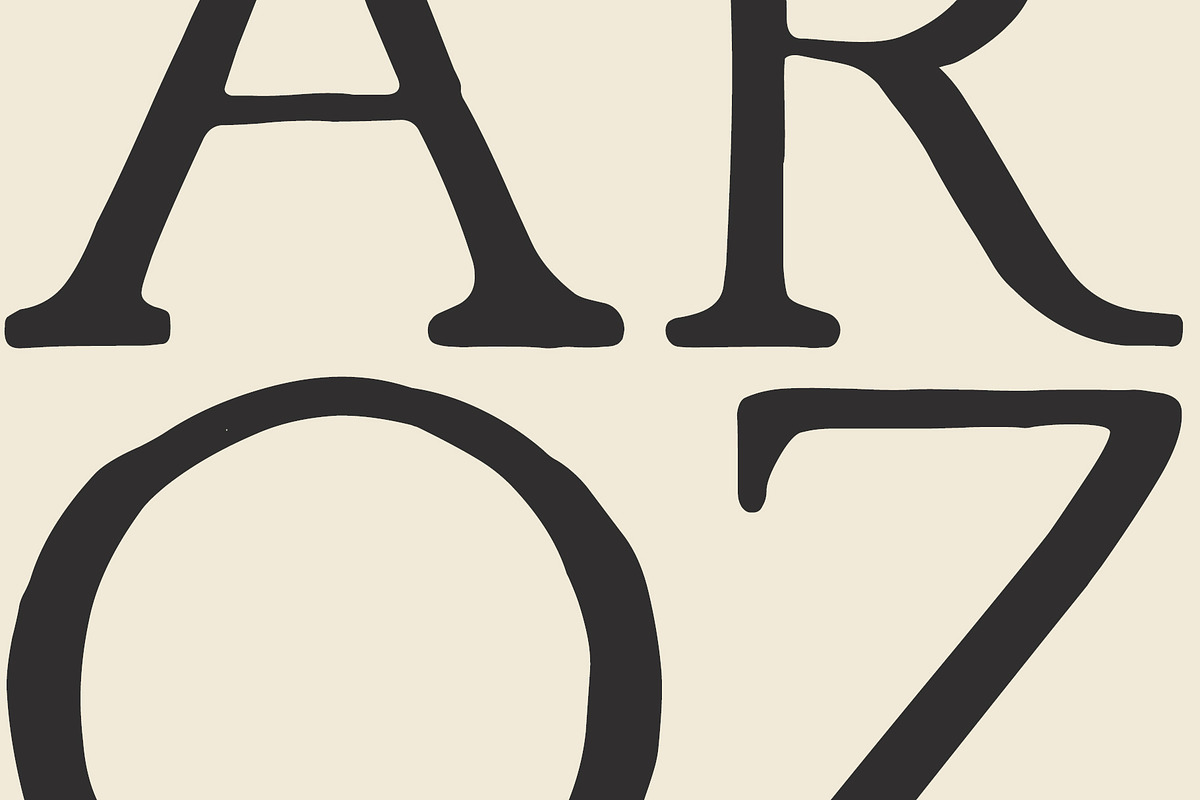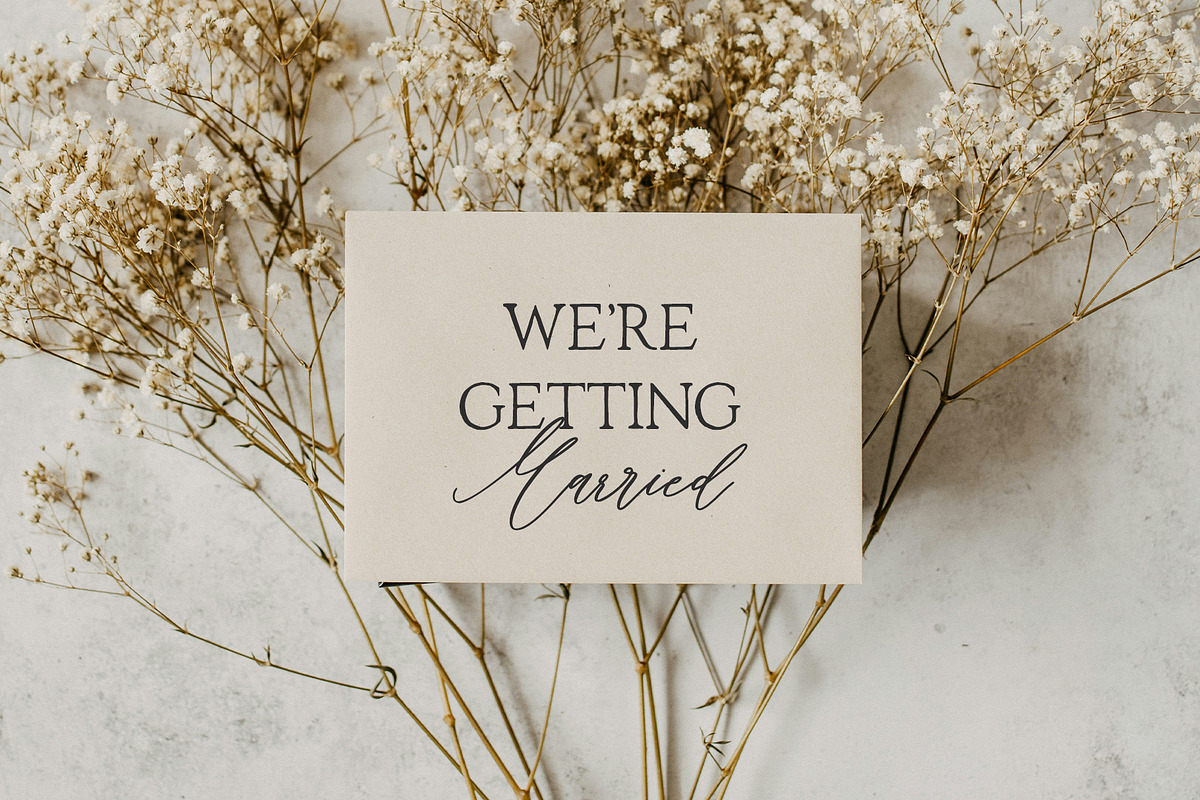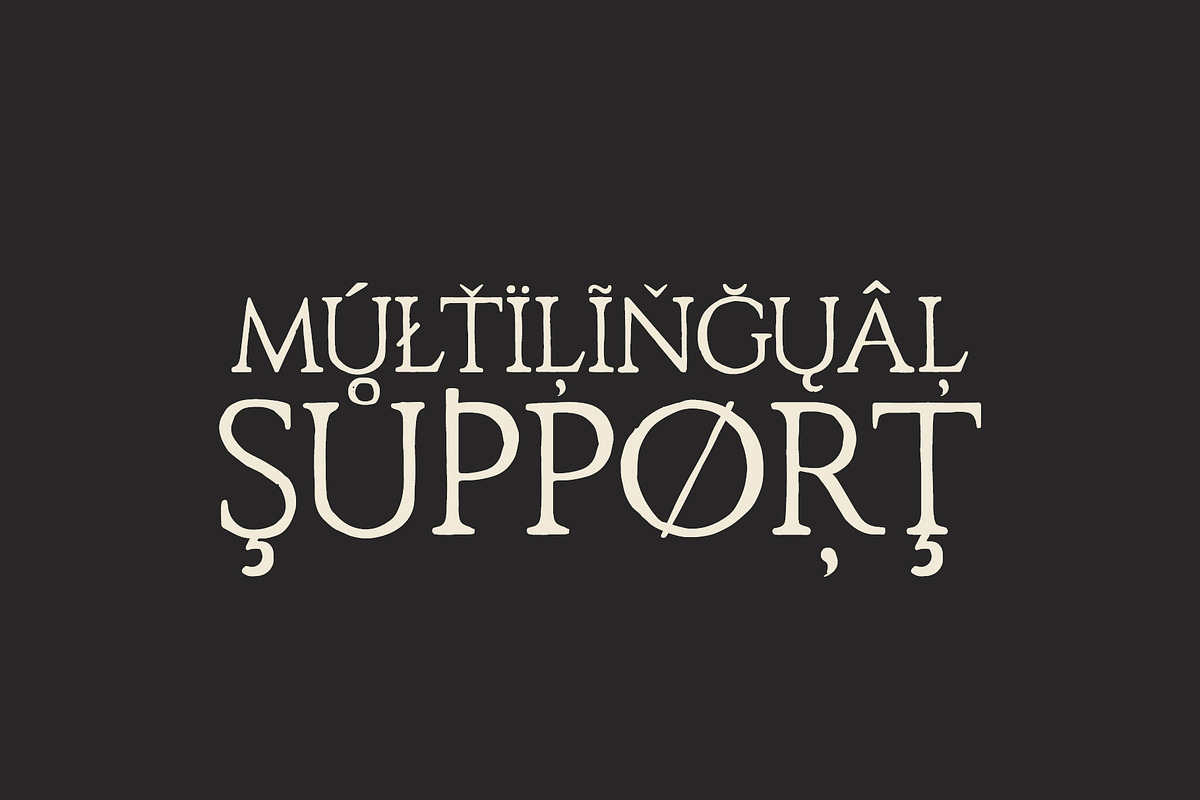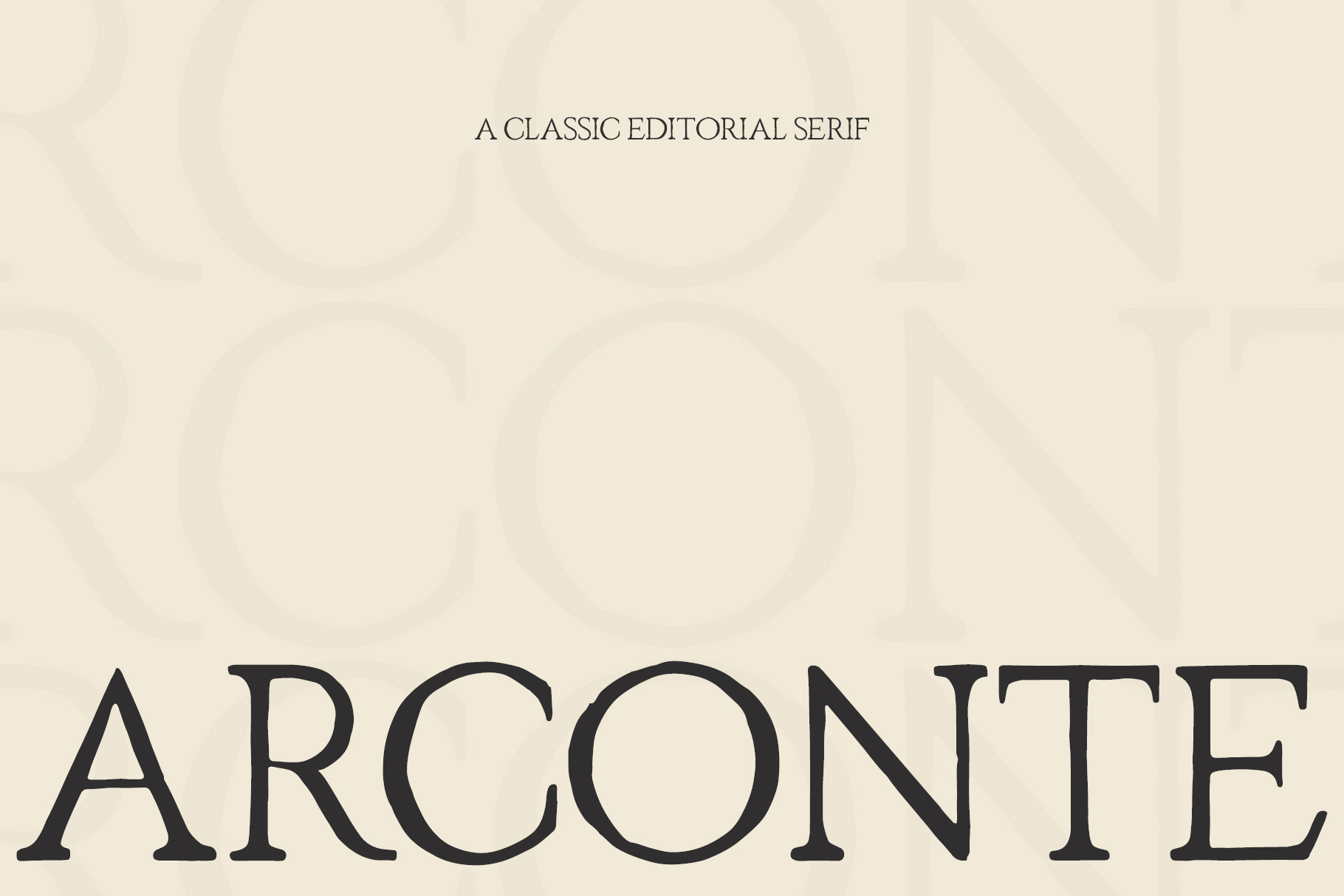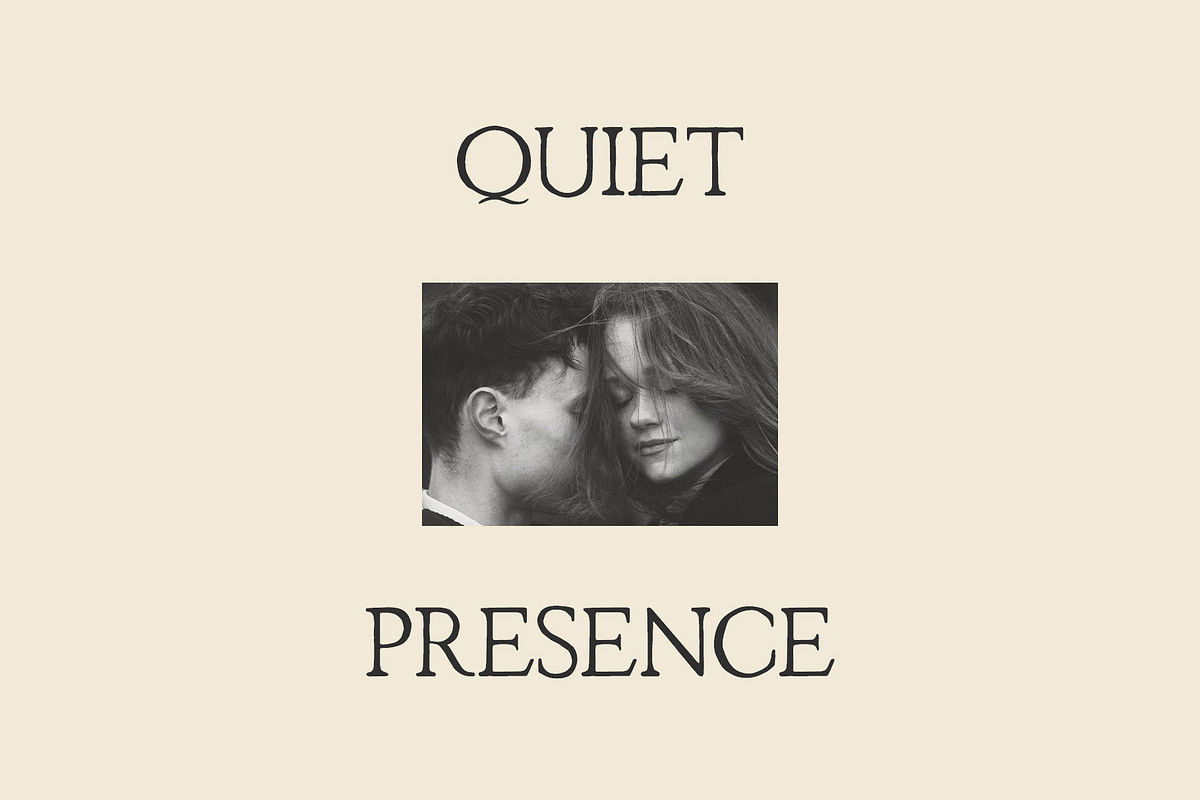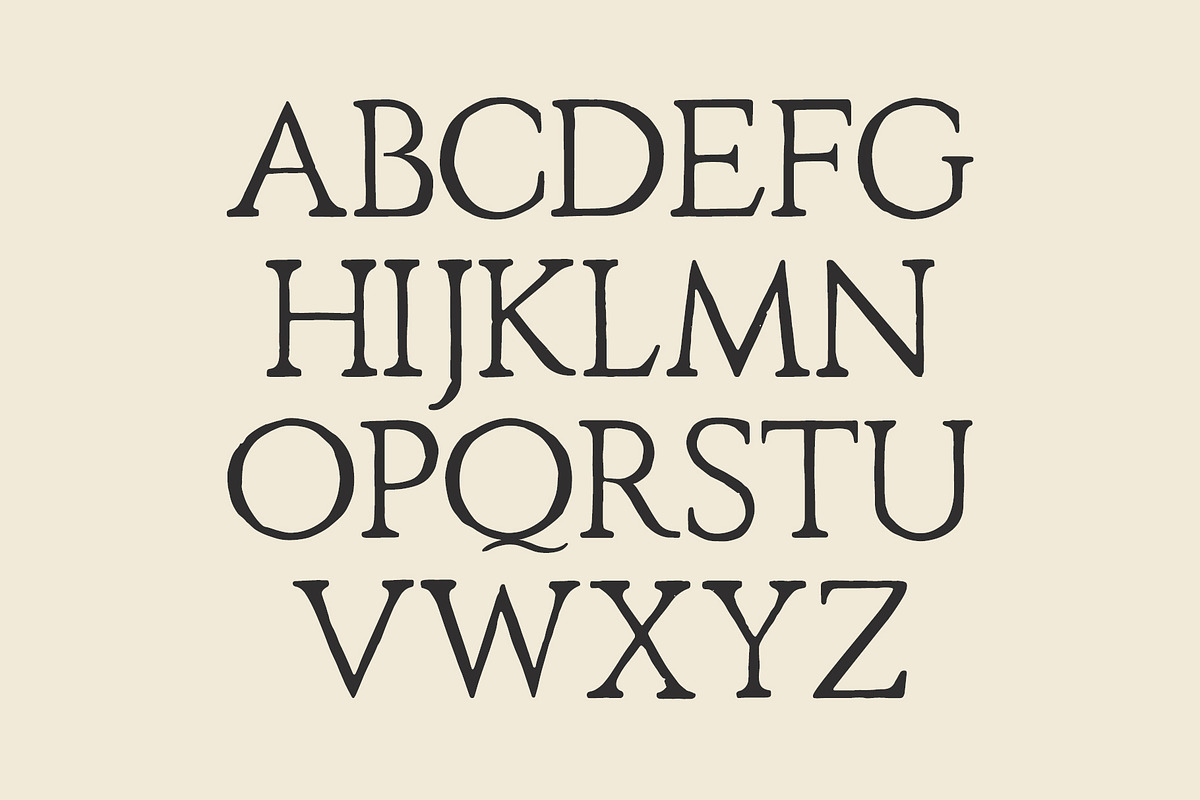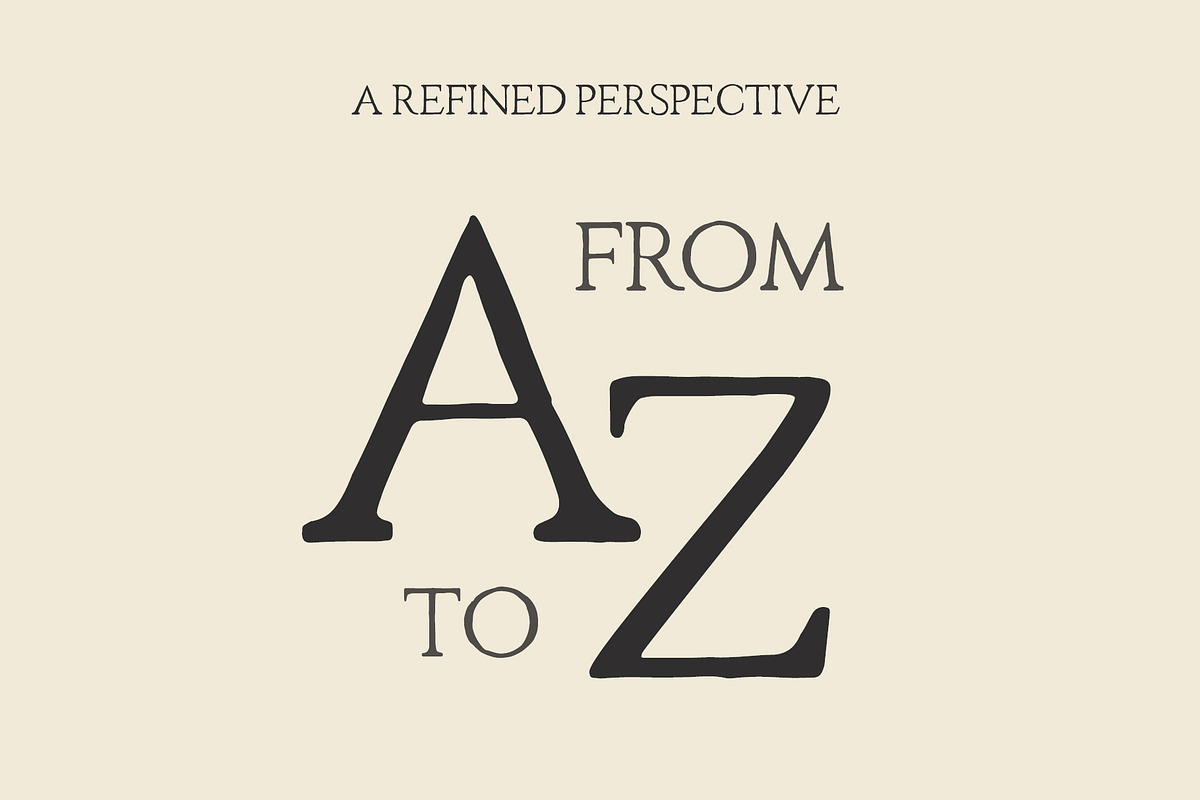
Arconte – Hand Drawn Serif Font
Arconte is a handwritten serif font with a natural, hand-drawn feel. The letters are intentionally imperfect, which gives the font a warm and organic look. Arconte includes uppercase letters only and is designed for clear, expressive typography.
This font works well for titles, branding, invitations, editorial layouts, posters, packaging, and creative projects where character and simplicity are important. Arconte is easy to use and looks best at medium to large sizes.
- Uppercase letters only
- Multilingual support (Latin-based languages)
✨ Perfect for branding, print design, invitations, posters, and creative layouts.